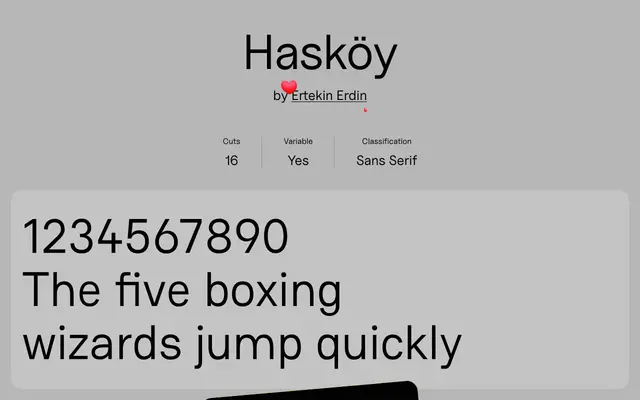
Hasköy
A 16-cut variable sans-serif by Ertekin Erdin, freely available under the SIL Open Font License for commercial and personal use.
Hasköy is a sans-serif typeface by Ertekin Erdin, offered in 16 cuts with variable font support. Released under the SIL Open Font License 1.1, it permits commercial use, modification and redistribution with certain conditions. Its name references a historic neighbourhood in Istanbul, suggesting a design informed by that cultural context.
Listed as Sans Serif on the page, with no further subclassification. The name and designer suggest a Turkish origin; classified as grotesque based on the general sans-serif category.